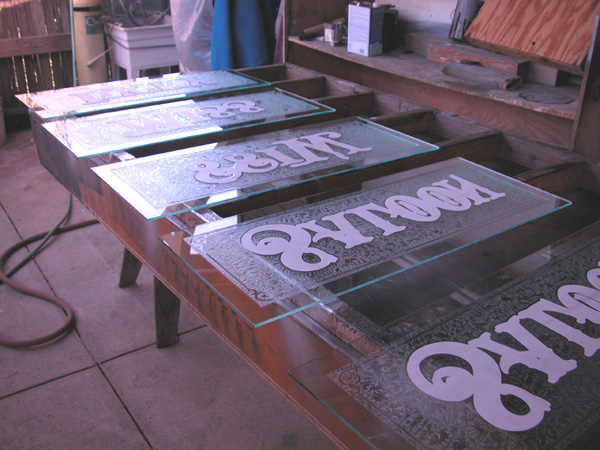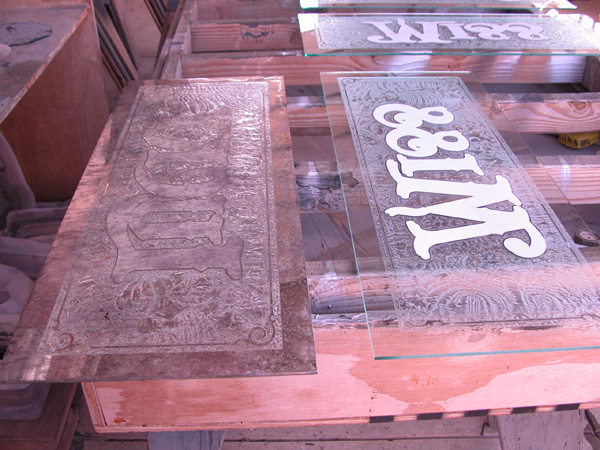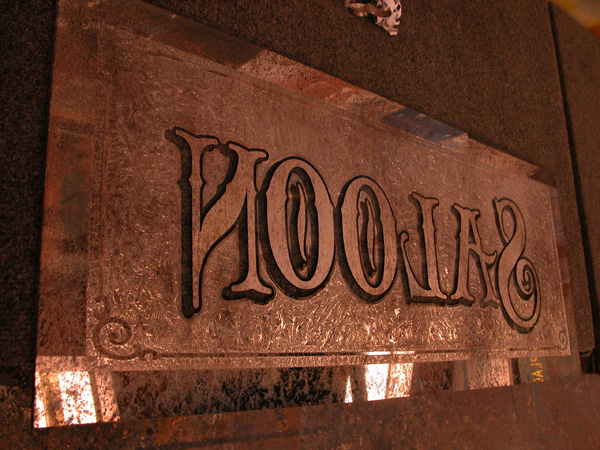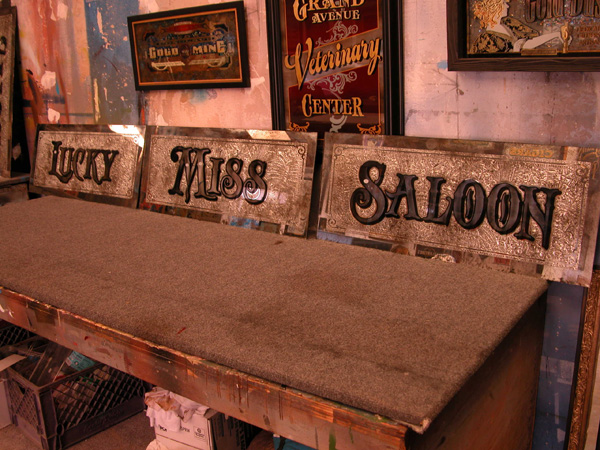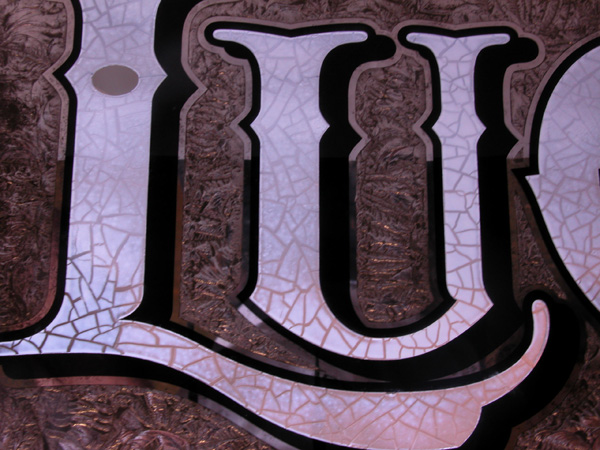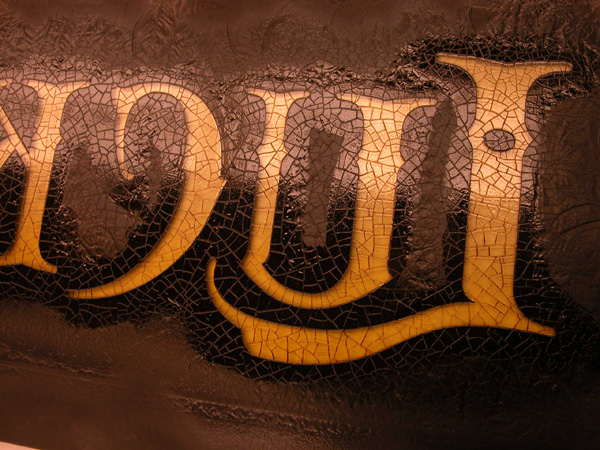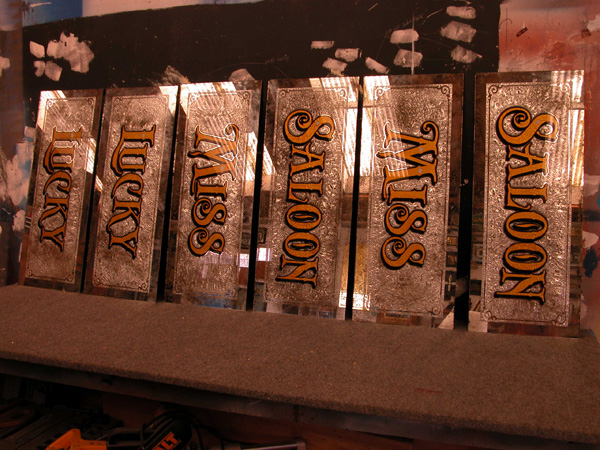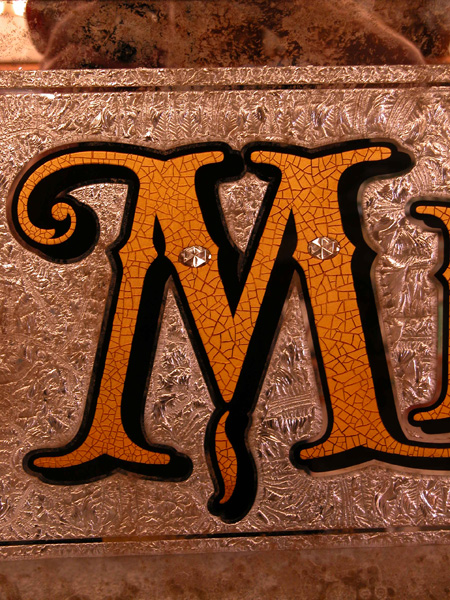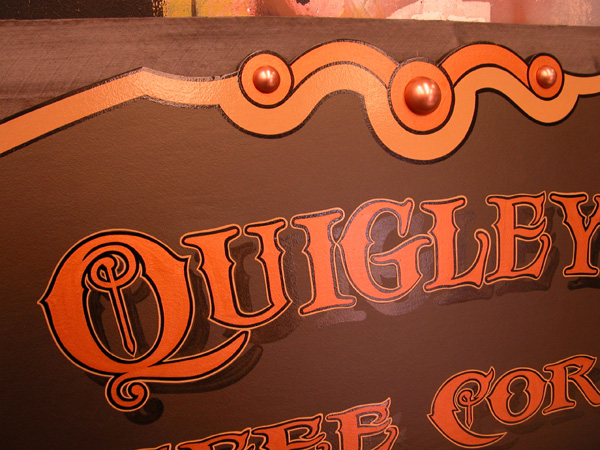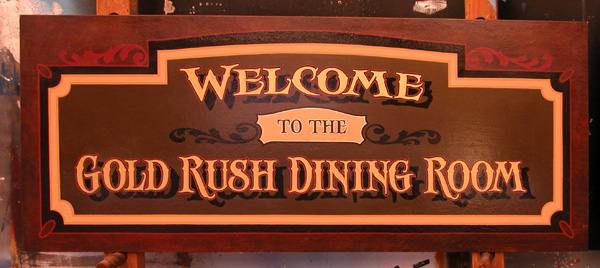
I am working on a glass sign and antique mirror project for the Denali Nation park. I found some really cool art work for reference. Thought you might like to see some of it.
It looks like a fun job! You've got some nice things to work with there. Can't wait to see 'em done.
I like the larger letterstyle used on the first one, someone should turn that into a font. Hmmm... I just might do that.
So Now I've got the "Lucky Miss Saloon Panels all buttered up with glue just waiting to go in the chipping booth.
Hey I did the gold leaf at Scagway Alaska about 15 years ago. I did the gold for "Gold Rush National Historical Park" and many of the antique style directional signs. It was so cool because i got a free trip to alaska and earned 2 thousand bucks on top of that ! Good luck with your job. I always wanted to do a chipped glass sign, and someday i may look into it on this forum.
That's an interesting spelling of "Good-By".
Here's a poem by Ralph Waldo Emerson spelled the same way:
Mike ,
Well here's where I am as of today.
All chipped,masked and waiting to be antique mirrored.
The left one is antique mirror and the right one will be next.
All the panels are now antique mirrored .The mask has been pulled off where the black outline and drop shadow will be.
All cleaned up and ready to go drinking. My next step will be to apply porcelen crackle to the letters,stain that with tinted orange shelleck and then 23k gold.
I'll be danged!
I always took you for surfing, and idle conversation!
That's niether!
Nice job! Looks like fun too!
That was always one of Frank's tricks,
...watching the glue chip,
and there's no reason to hurry!
Hey, I think I see Sally's bacon hanging in the background!
Those look really good Roderick, nice job!
So, that was Sally's bacon eh... I usually get blamed for that type of horseplay.
One more thing, what brand of crackle finish you using around there?
That means alot coming from a guy who know his crack.
Here are some photo of the next two sign I just finished for them. Everything is hand painted.